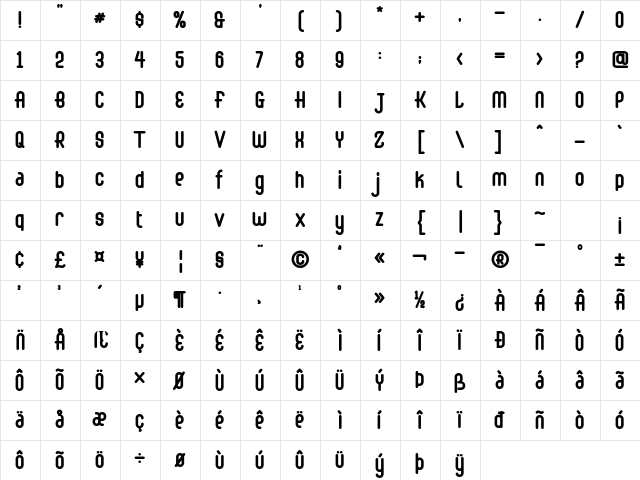
Complete Abingdon Bold glyph index. Displaying only characters natively supported by Abingdon Bold font.
Abingdon is a composed and adaptable typeface that performs quietly and consistently across a wide range of design contexts. Its bold stroke weight gives it real presence on the page.